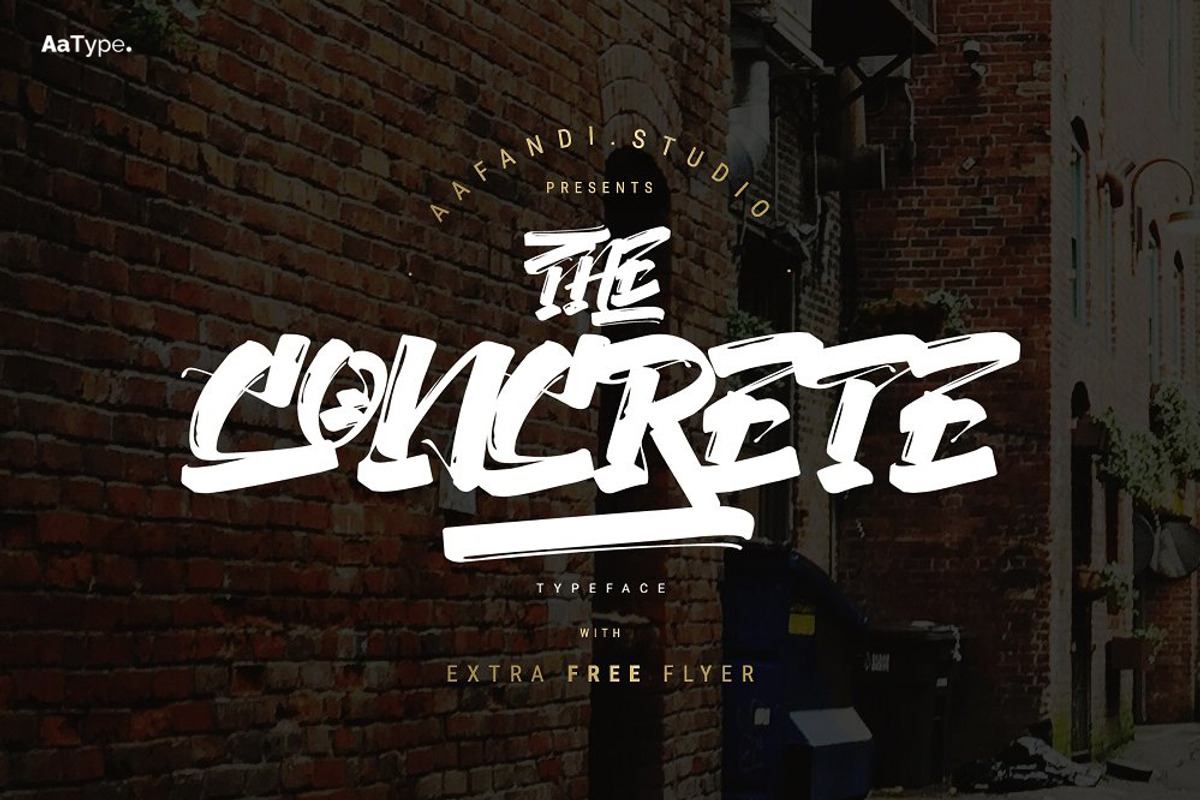
The Concrete Graffiti Font Free Download is a bold and edgy typeface inspired by street art and urban graffiti. With its rough, textured edges and spray-painted style, this font is perfect for creating edgy logos, posters, streetwear designs, album covers, and urban-themed graphics. It brings an authentic, raw energy to any project, making it ideal for designs that need to stand out with a rebellious vibe.
Using the The Concrete Graffiti Font Free Download adds a gritty, street-smart character to your designs. Whether you're designing promotional material for an underground music event, creating a custom logo for a streetwear brand, or crafting urban art, this font gives your typography a distinctive, bold look.